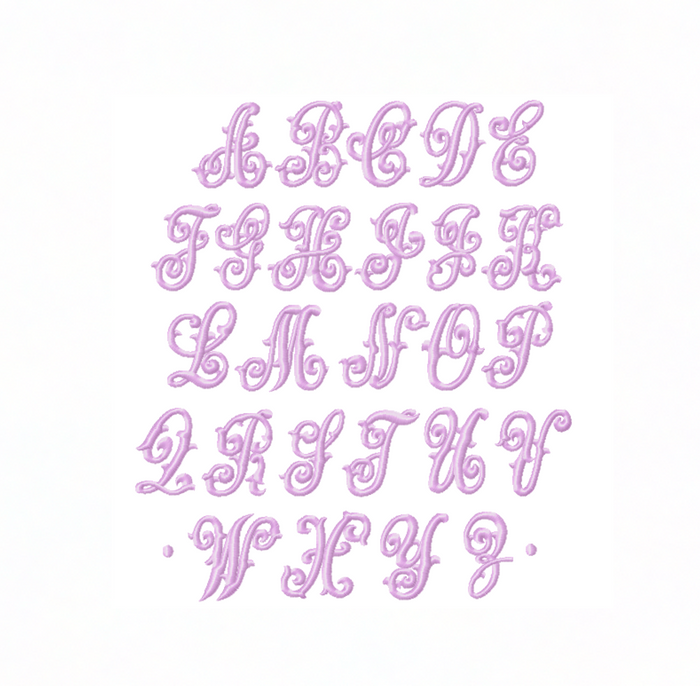
Willow Satin Embroidery Font Package
Unleash your creativity with the Willow Satin Embroidery Font Package, a stunning single color satin stitch font that includes all uppercase letters A-Z along with accent dots. This font is perfect for crafters and DIY enthusiasts looking to personalize their projects.